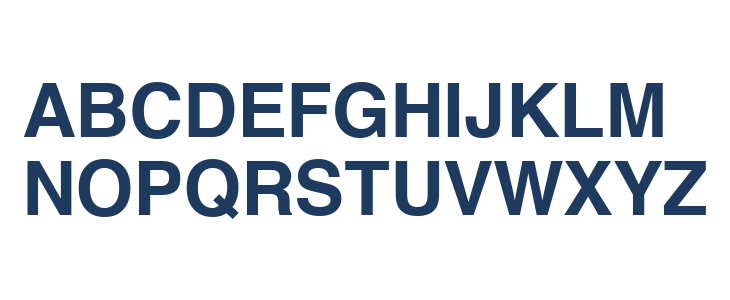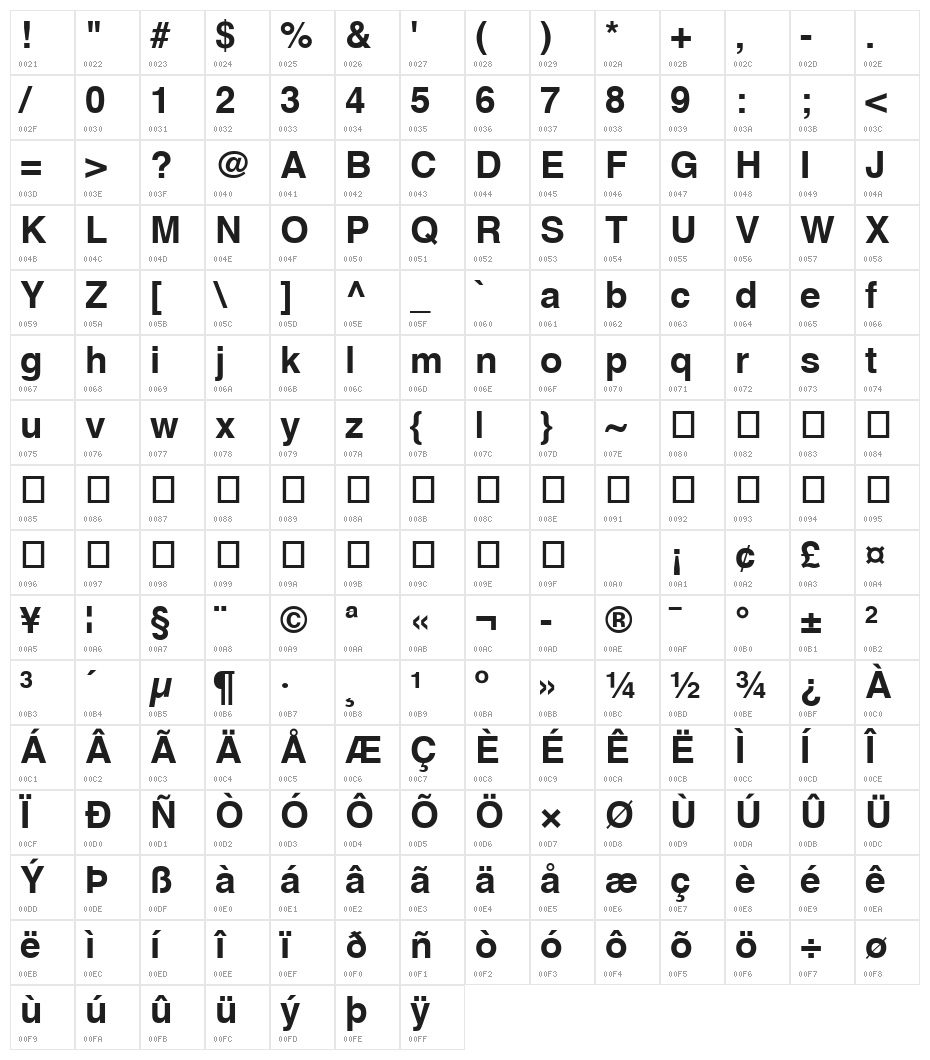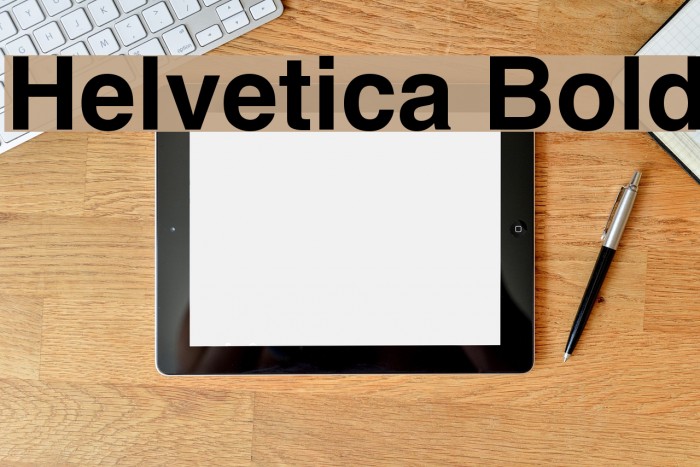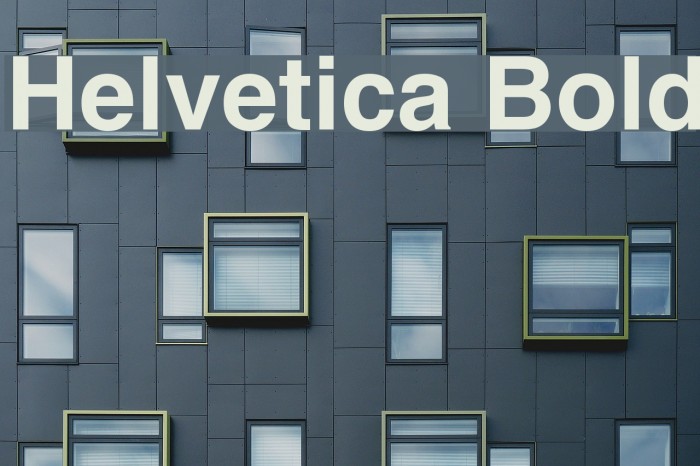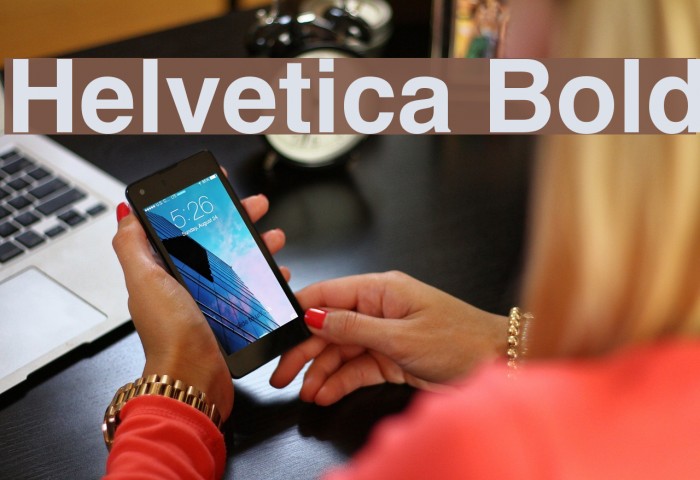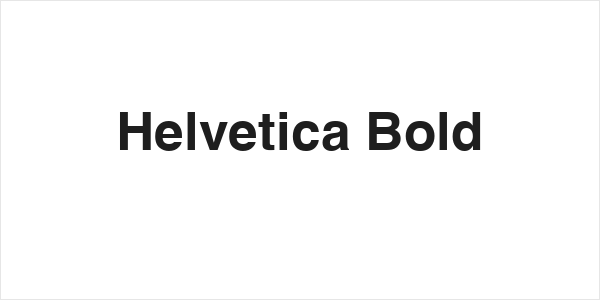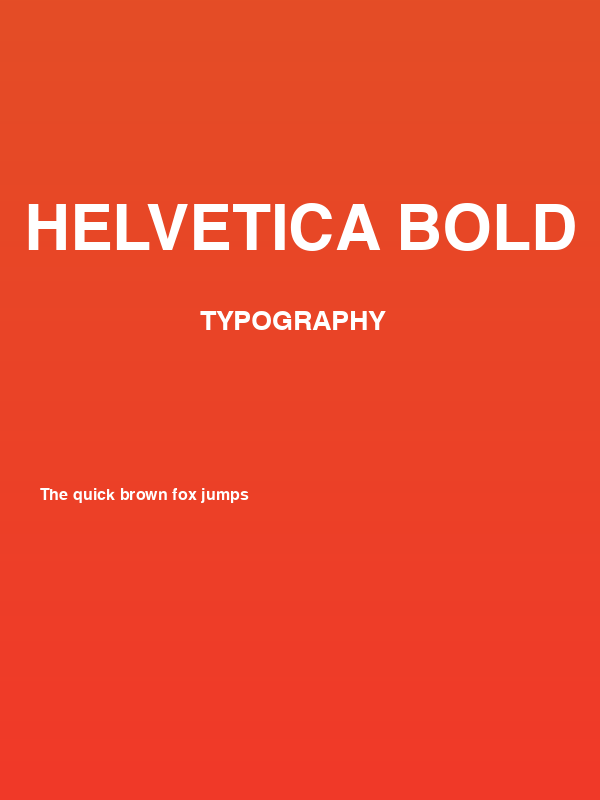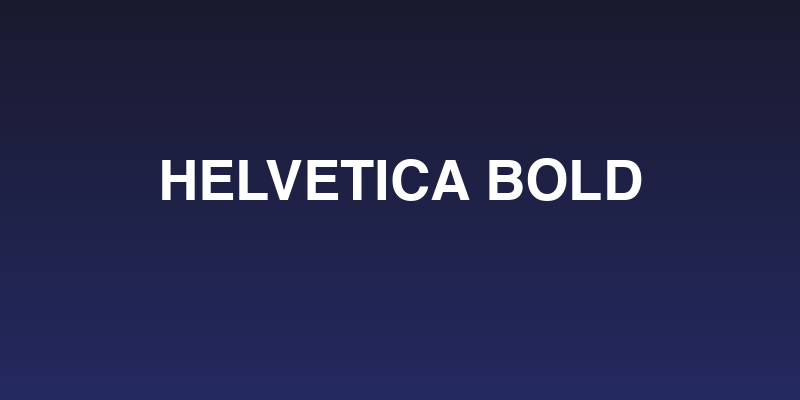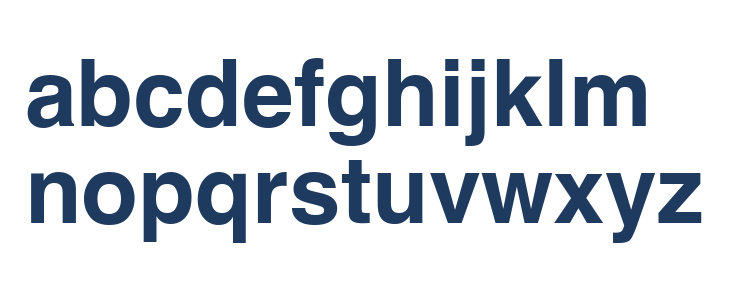
Helvetica Bold Font
Helvetica Bold Description
This typeface is a bold, sans-serif font known for its clean and modern appearance. It features uniform stroke widths and a lack of serifs, giving it a sleek and contemporary look. The characters are well-balanced and highly legible, making it a popular choice for a wide range of applications. Its bold weight enhances visibility and impact, making it suitable for both digital and print media. The font's design is straightforward yet sophisticated, with a focus on clarity and readability. It is versatile and can be used effectively in various contexts, from corporate branding to editorial design.
| Use Case | Headlines, Logos, Digital interfaces |
| Proposed Projects | Ideal for corporate branding, advertising, editorial design, and digital interfaces. |